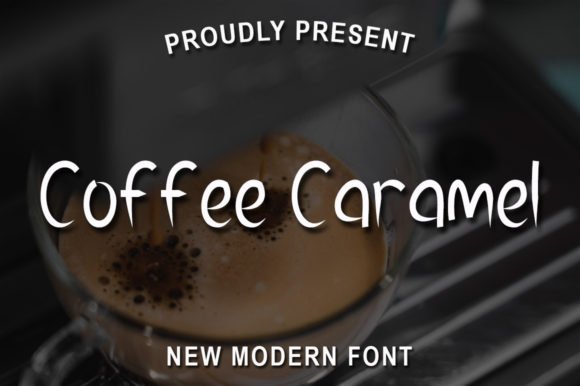
Introduction to Coffee Caramel Font
Coffee Caramel is a cool, neat and trendy handwritten font.
Why Choose Coffee Caramel Font?
Coffee Caramel Font offers exceptional quality and versatility, making it a valuable addition to your design toolkit. Whether you’re creating for personal projects or commercial use, Coffee Caramel Font delivers professional results.